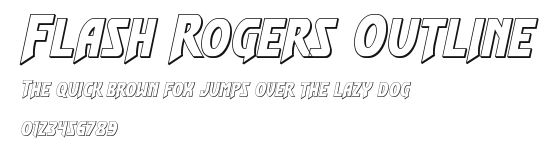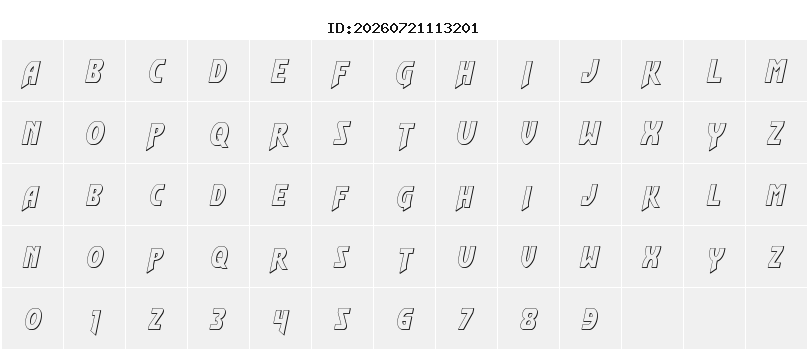
• Font Name: Flash Rogers Outline
• Font Style: Outline
About Flash Rogers Outline.ttf
Flash Rogers Outline.ttf is a modern, elegant sans-serif font designed for ultimate readability and visual harmony. Perfect for branding, headlines, web design, and print materials.